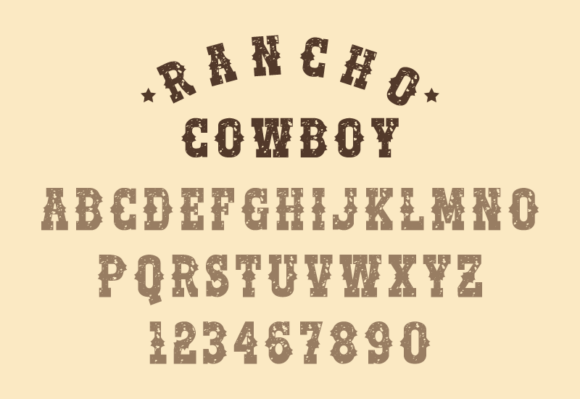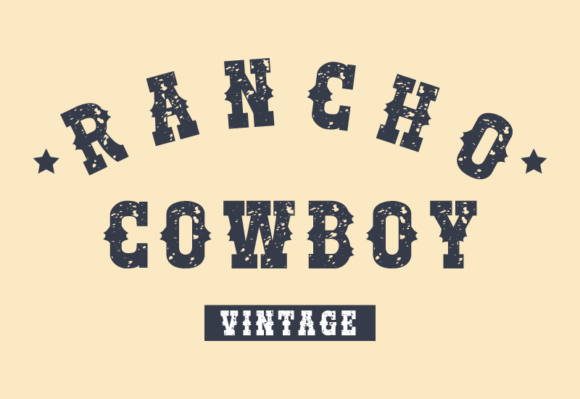
Introduction to Rancho Cowboy Font
“Rancho Cowboy” is an exclusive and vintage font.
The stylish design method and its elements will bring a western touch to your projects ”Rancho Cowboy” is a simple Western-style serif font designed for a clean retro look.
Key Features of Rancho Cowboy Font
Why Choose Rancho Cowboy Font?